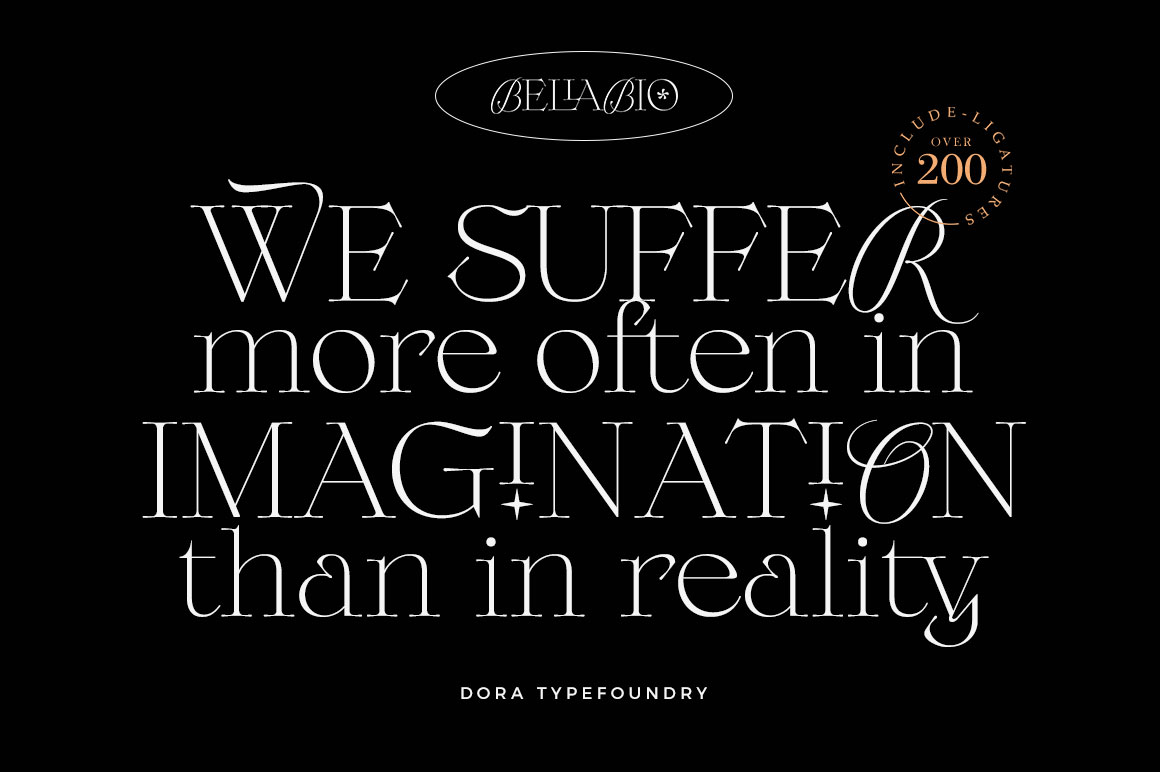
About Bellabio
Introducing, Bellabio is an elegant modern Serif Font that gives a romantic feel to every curve that has smooth edges and a trendy look to your designs. This font also has a very fancy uppercase alternative to combine. Bellabio has 200+ Ligatures included,…